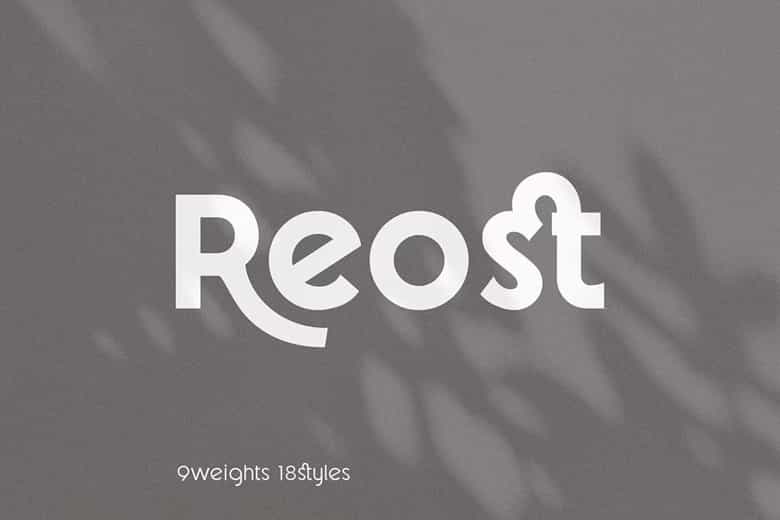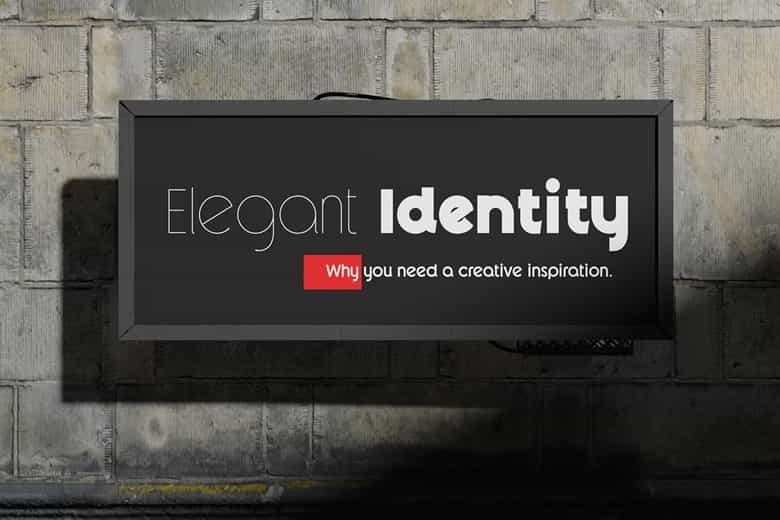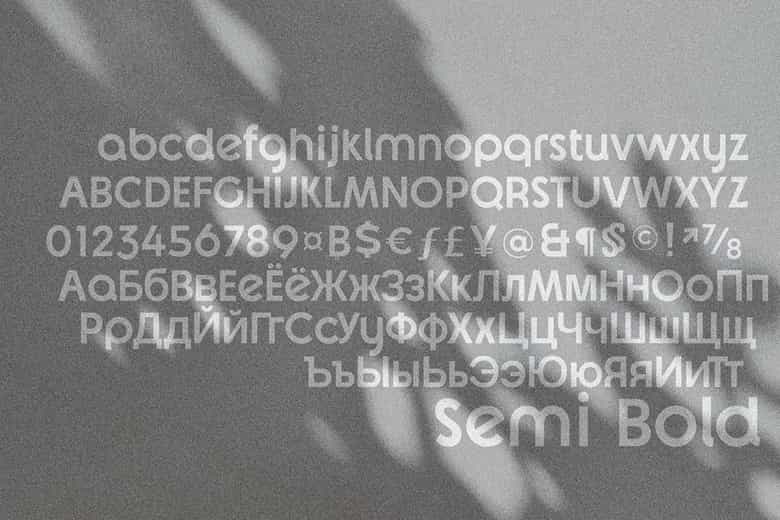
Discover Reost Font Family, part of the Sans Serif collection—a versatile and unique font perfect for adding a personal touch to your projects. Download it for free and enjoy crafting designs with style, from invitations to social media posts. This font is available exclusively for personal use, giving you the freedom to create without limits. Unlock your creativity with Reost Font Family today!
Reost Font is based on a geometric approach because the system is supposed to fit into any kind of layout and space, and measures have been taken to avoid contrast distortion due to the interpolation deformation. As for the cute factor, it’s the only keyword that can describe this project on its own accord.